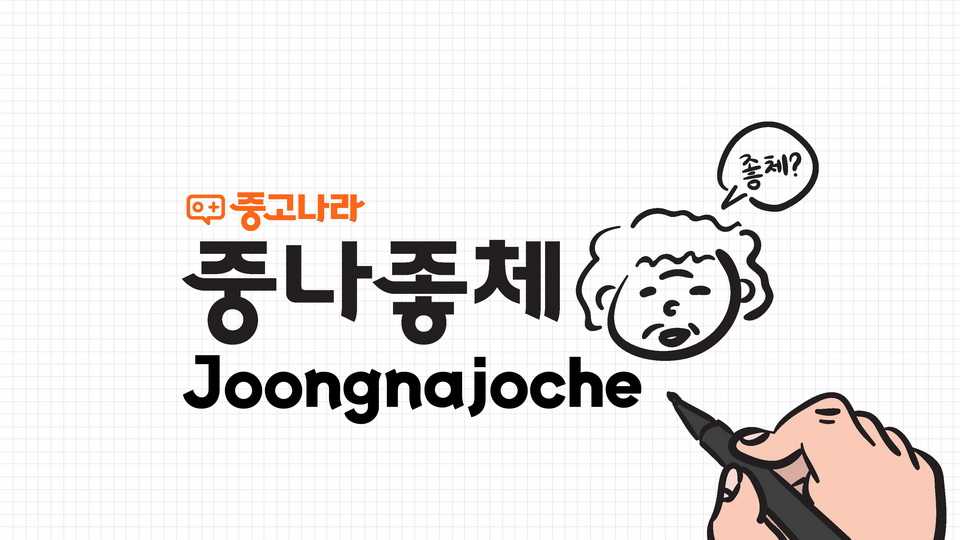
Download Joongnajoche typeface, a font family in two weights that uses the external characteristics of the used country symbol to create a cool and lively feeling. Joongnajoche supports Korean and Latin languages.
Designer: Joonggonara Corp.